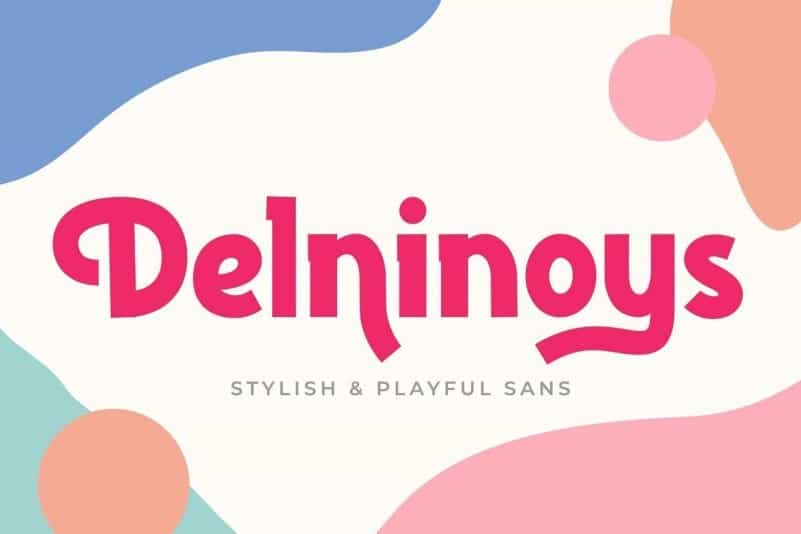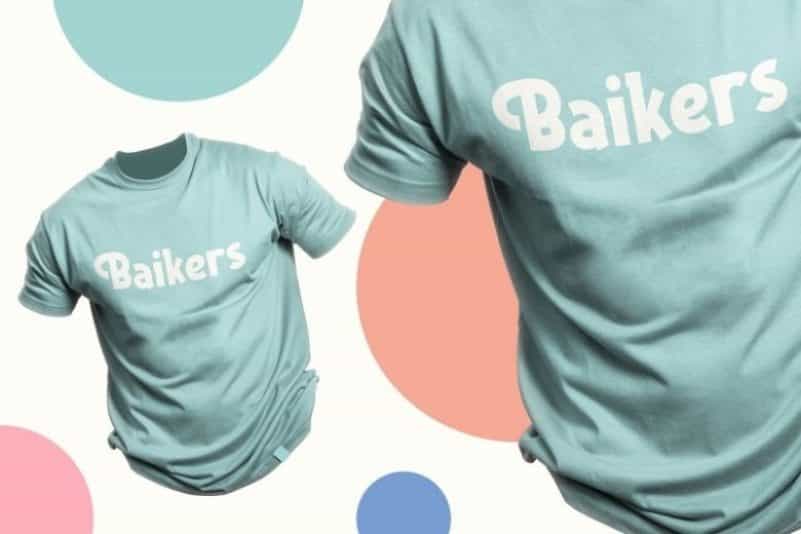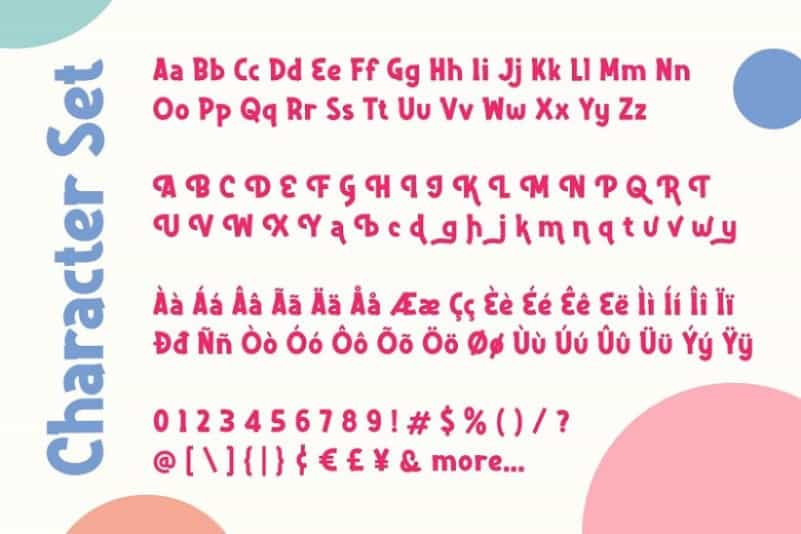
Delninoys is a display font crafted to be a crowd pleaser. Its relaxed appeal gives it a down to earth and highly versatile look. Whether used against backgrounds or as a headline Delninoys shines in any setting!